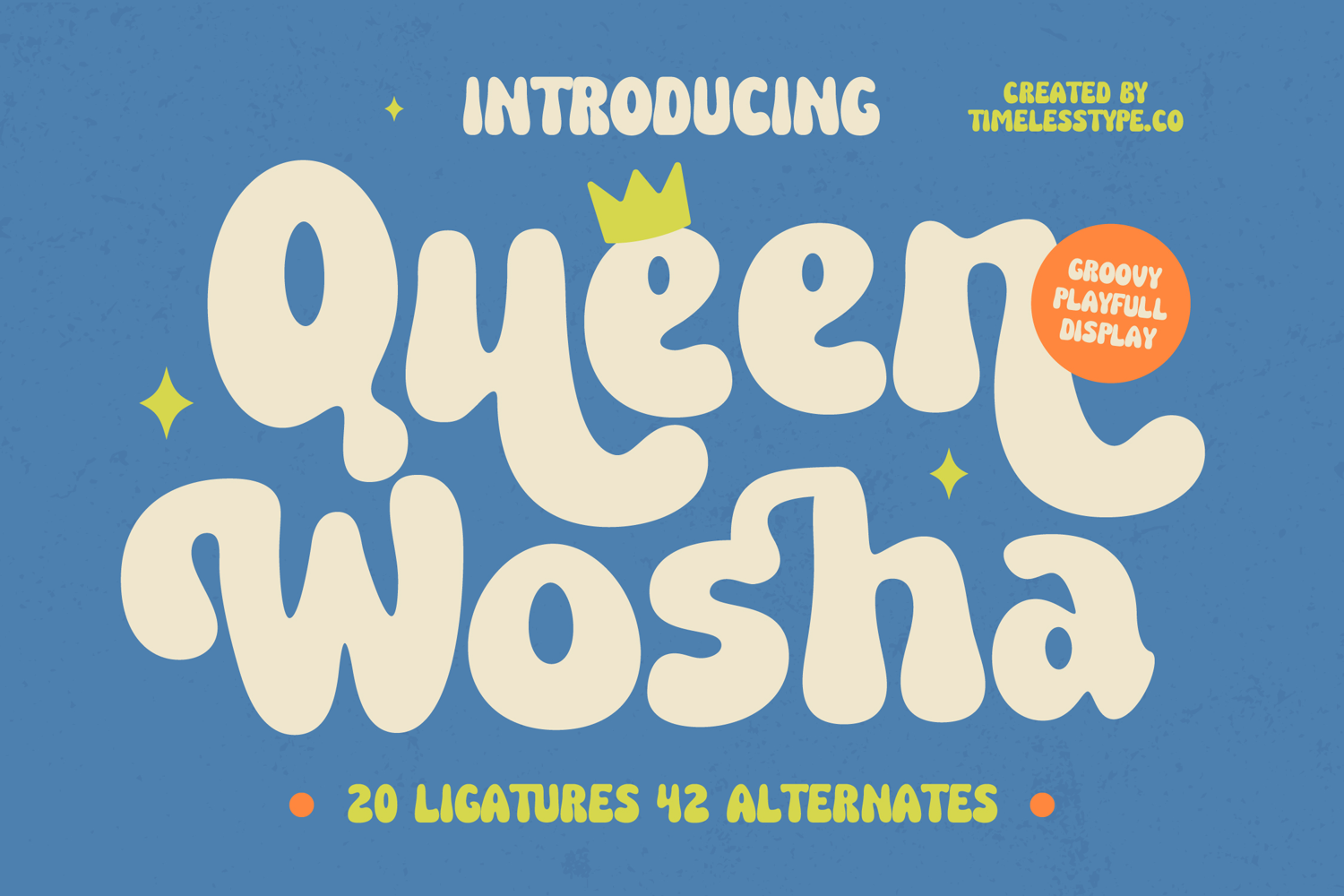
Queen Wosha - Groovy Playfull Display
Queen Wosha
Queen Wosha Italic
Queen Wosha - Groovy Playfull Display
Unleash an unforgettable visual narrative with Font Queen Wosha - Groovy Playfull Display Groovy, a truly captivating typeface designed to command attention. This unique display font masterfully blends retro-inspired playfulness with refined elegance, creating an aesthetic that is both charmingly nostalgic and perfectly suited for contemporary design. Its distinctive, flowing curves and high-contrast lines ensure your message is delivered with undeniable impact and sophisticated flair.
Discover unparalleled creative versatility within every character of Font Queen Wosha - Groovy Playfull Display Groovy. Featuring an array of extensive ligatures and alternate characters, this font empowers designers to craft truly bespoke headlines, logos, and branding elements. Each unique flourish provides the opportunity for expressive customization, allowing for a dynamic and engaging visual presence that stands out from the crowd.
Expand your global reach effortlessly with Font Queen Wosha - Groovy Playfull Display Groovy. With its extensive multilingual support, Font Queen Wosha - Groovy Playfull Display Groovy adapts seamlessly across global markets, making it incredibly versatile for international projects. This crucial feature ensures your message retains its distinctive charm and professional polish, regardless of the language barrier, fostering a truly inclusive brand identity.
Elevate your projects to a new level of distinction. Font Queen Wosha - Groovy Playfull Display Groovy is perfect for luxury branding, sophisticated packaging design, striking editorial titles, engaging fashion campaigns, and memorable event invitations. Choose this font to imbue your designs with timeless elegance and a playful, unique personality that resonates deeply with your audience and leaves a lasting impression.